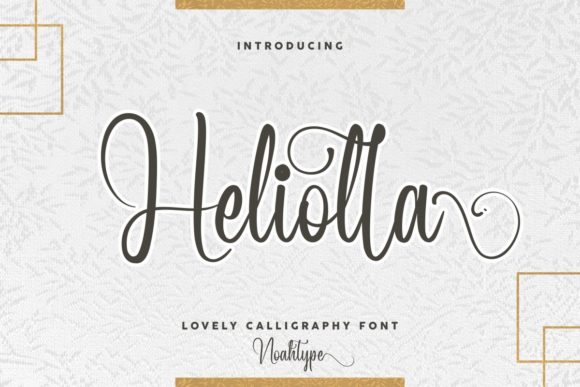
Introducing Heliolla Font, the captivating calligraphy typeface that will ignite your designs with an air of timeless elegance! Its characters dance gracefully along the baseline, adding a touch of luxury and sophistication to any project.
With Heliolla, you'll effortlessly enchant your audience, whether crafting alluring music charts or creating stunning wedding invitations. This font's versatility knows no bounds, making it perfect for branding, logos, posters, and more. Its PUA encoding unleashes a treasure trove of glyphs and swashes, empowering you to add an extra touch of creativity and flair.
Step into the world of Heliolla and experience the joy of creating designs that captivate and inspire. Let its enchanting curves and playful lines transport you to a realm of artistic possibilities. Download Heliolla today and embark on a creative journey that will leave an unforgettable mark!